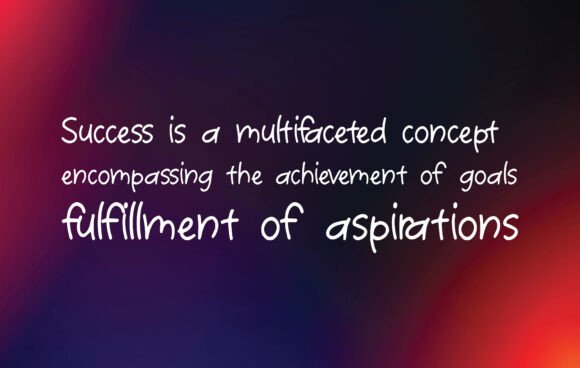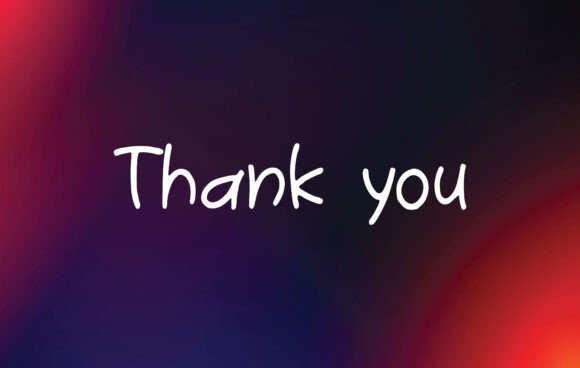
Introduction to Sevyn Font
Have you ever been in a brainstorming session, surrounded by ideas and inspiration, but struggling to find the perfect font to bring your creative vision to life? This is where the magic of the Sevyn Font comes in – a beautiful, high-quality handwritten font that has the power to elevate your design and leave a lasting impression.
Whether you’re working on a new branding project, creating eye-catching logos, or crafting stunning quotes, the Sevyn Font is an invaluable resource that will help you take your creative ideas to new heights. With its unique, handwritten style and transparent background, this font is the perfect addition to any design project, and with a free download available, you can start experimenting with it today.
Key Features of Sevyn Font
- Unique, stylish font with a transparent background, ideal for adding a touch of elegance to designs.
- Includes a range of weights and styles, allowing for versatility in design applications.
- Seamless scalability, suitable for use in high-resolution designs (up to 300 DPI).
- Designed to work well in digital and print media, making it a valuable asset for designers.
Honest Review: Sevyn Font
As a designer, I’m always on the lookout for high-quality design resources that can elevate my creative projects. Recently, I stumbled upon Sevyn Font, and I must say, it’s a fantastic find.
What works well: ✨ Sevyn Font offers a sleek and modern aesthetic that’s perfect for various design applications. The font is incredibly versatile, making it suitable for logos, headings, and body text. I appreciate the fact that it’s available for free download, which is a huge plus for designers on a budget.
The font’s transparent background is a nice touch, allowing for seamless integration with images and other design elements. The bold and thin weights provide a great balance, giving designers ample opportunities to experiment with different typography styles.
- High-quality design resource
- Multiple weights for versatile typography
Limitations: ⚠️ While Sevyn Font is an excellent addition to any designer’s toolkit, it may not be suitable for extremely complex or detailed designs. Additionally, the font’s simplicity might make it blend in with other elements, requiring some extra creativity to make it stand out.
Overall impression: Sevyn Font is a fantastic resource for designers looking to add a modern touch to their creative projects. Its high quality, versatility, and free availability make it a must-have for any design enthusiast.
How to Use Sevyn Font
The Sevyn Font is a high-quality design resource that offers a unique and creative touch to any project. With its transparent background, it can be easily integrated into various design platforms.
Tips for Getting the Most Out of Sevyn Font
To get the most out of the Sevyn Font, use it in conjunction with other design elements, such as images and graphics. Experiment with different font sizes, colors, and arrangements to create unique and eye-catching designs.
The Sevyn Font is commonly used in creative projects, such as:
- Branding
- Print design
Q: Is the Sevyn Font a high-quality font, suitable for professional design projects?
Yes, the Sevyn Font is a high-quality font, carefully crafted to provide a unique and elegant look for your creative projects. With its clean and modern design, it’s perfect for use in a variety of contexts, from brochures and flyers to business cards and presentations. The font is designed to be legible and visually appealing, making it an excellent choice for professional design projects.